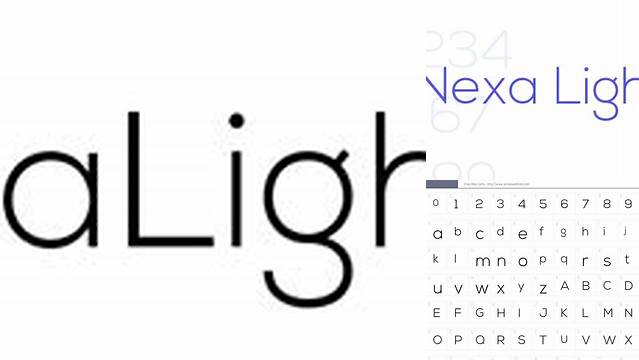
1. What is Nexa Light Font?
The Nexa Light font is a popular typeface known for its clean, contemporary design. It belongs to the Nexa family, created by Fontfabric, and stands out with its geometric structure and excellent readability. Its versatility makes it a favorite among designers for both print and digital media. The light weight gives it an elegant touch, making it suitable for headlines, body text, and various other applications. When you choose Nexa Light font, you are opting for a font that brings sophistication and clarity to your designs. This font is particularly useful in scenarios where readability is key, such as websites, mobile apps, and corporate documents. Many designers also appreciate its ability to pair well with other fonts, making it a valuable asset in any font library. Nexa Light font's minimalist design ensures it remains timeless and adaptable to evolving design trends.
2. The Appeal of Nexa Light Font
What makes the Nexa Light font so appealing? Its modern and minimalist aesthetic is a major draw. The clean lines and geometric shapes offer a professional and polished look, making it ideal for businesses aiming to convey sophistication and clarity. The font's legibility, even at smaller sizes, ensures that your message is always clear and easy to read. Moreover, Nexa Light font's versatility allows it to fit seamlessly into various design contexts, whether you're designing a website, creating marketing materials, or developing a mobile app. The font's adaptability to different weights and styles within the Nexa family also provides designers with a comprehensive toolkit for creating cohesive and visually appealing designs. Ultimately, the appeal of Nexa Light font lies in its ability to enhance the overall aesthetic and readability of any project, making it a valuable asset for designers and businesses alike.
3. Nexa Light vs. Other Light Fonts
When comparing the Nexa Light font to other light fonts, several key differences emerge. While many light fonts aim for elegance and readability, Nexa Light font distinguishes itself with its geometric structure and modern feel. Fonts like Helvetica Light are similar in terms of simplicity, but Nexa Light font offers a more contemporary aesthetic. Compared to softer, more rounded light fonts like Open Sans Light, Nexa Light font provides a sharper, more defined appearance. Its clean lines and precise forms make it a better choice for projects that require a touch of sophistication and professionalism. Additionally, Nexa Light font's extensive character set and multilingual support set it apart from some other light fonts that may have limitations in these areas. In summary, Nexa Light font stands out due to its unique combination of modern design, readability, and versatility, making it a preferred option for designers seeking a refined and contemporary typeface.
4. Designing with Nexa Light Font
Designing with the Nexa Light font opens up a world of creative possibilities. Its clean and modern aesthetic makes it perfect for a variety of projects, from website headers to business cards. The key is to leverage its simplicity to create a sophisticated and readable design. Use it in headlines to grab attention without overwhelming the reader, and pair it with a bolder font for contrast. In body text, Nexa Light font ensures readability, making it ideal for articles, reports, and other content-heavy documents. Consider using it in logos and branding materials to convey a sense of professionalism and modernity. When designing with Nexa Light font, pay attention to spacing and kerning to optimize its visual impact. Experiment with different font sizes and weights to find the perfect balance for your design. By understanding its strengths and applying it thoughtfully, you can create visually stunning and effective designs with Nexa Light font.